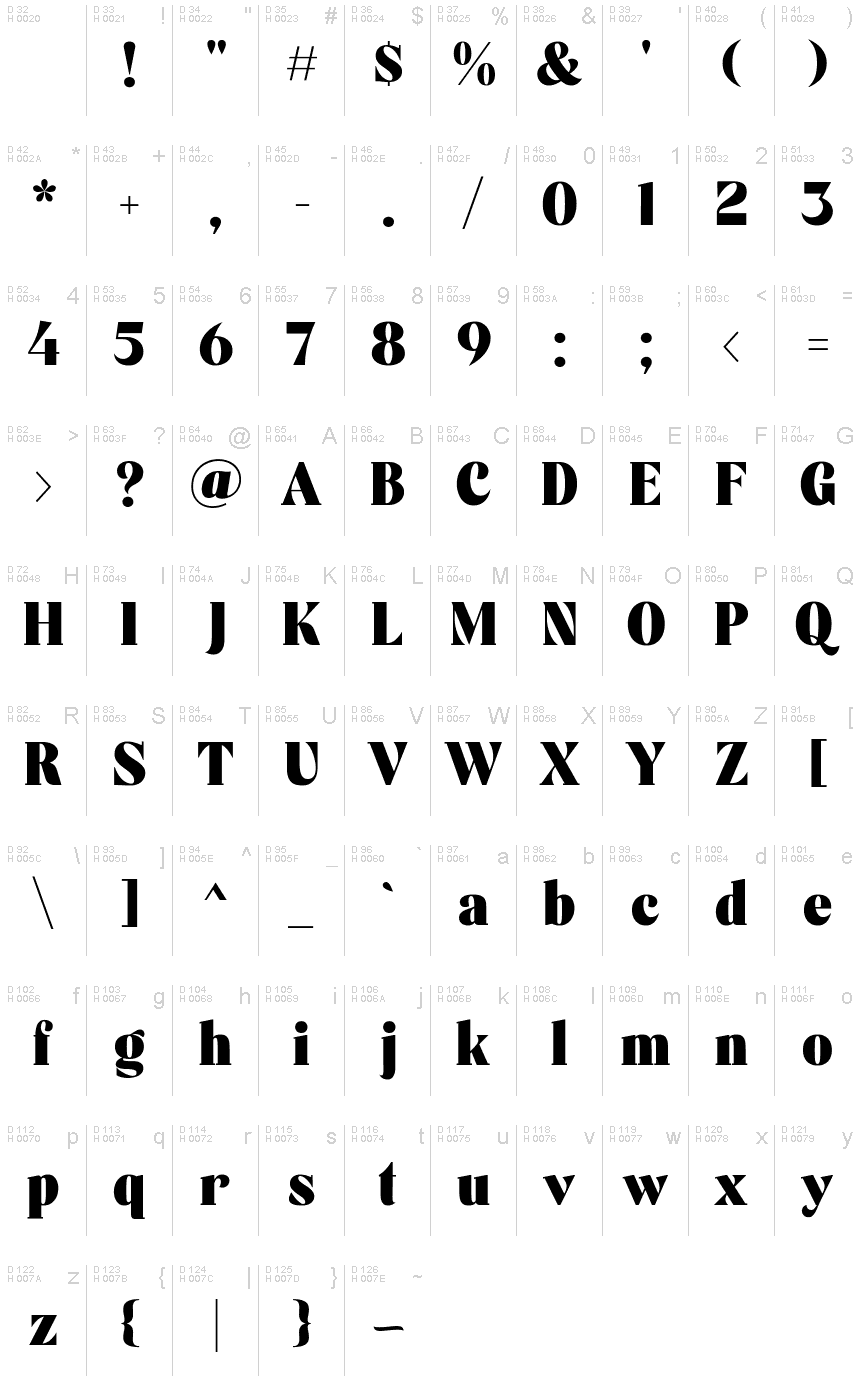
Astrella Regular
Introducing Astrella, an extra-bold serif font designed by Handpik. Astrella's classic yet modern style makes it perfect for creating bold titles and headlines for posters, book covers, and logos. Its elegant lines also make it a great choice for wedding invitations, certificates, and other formal documents.